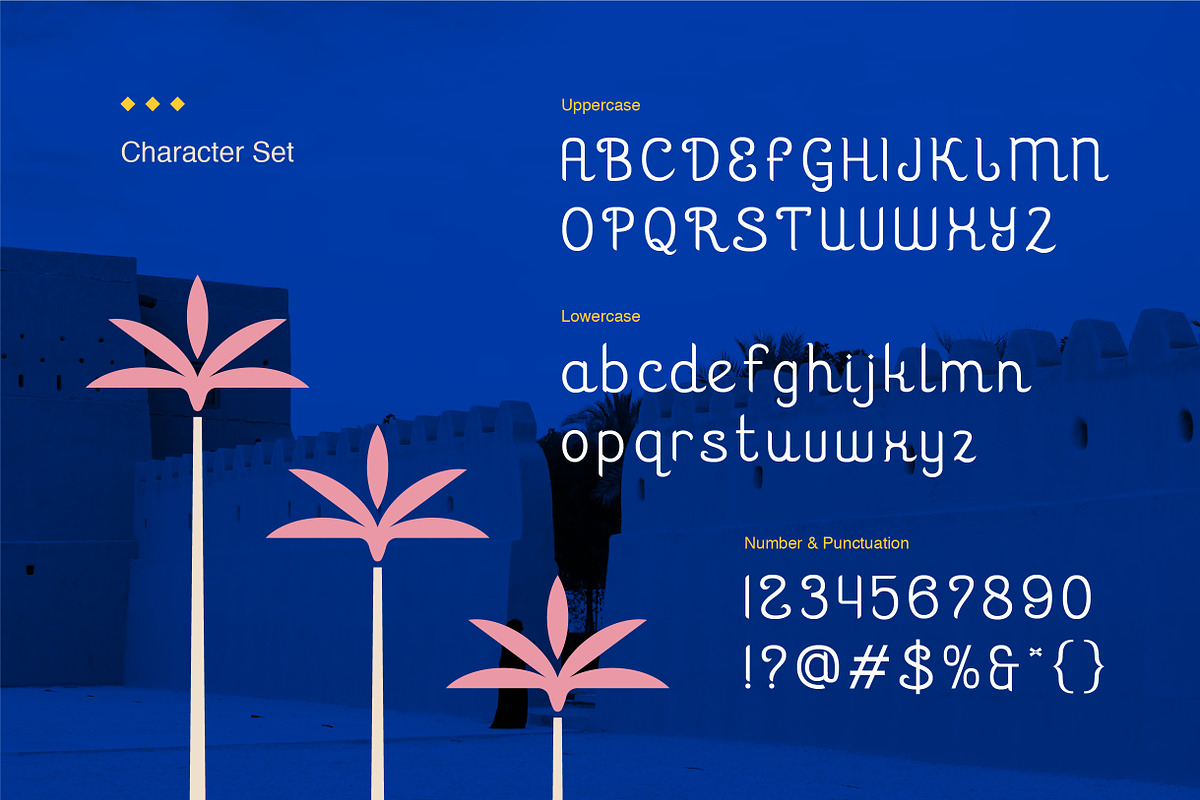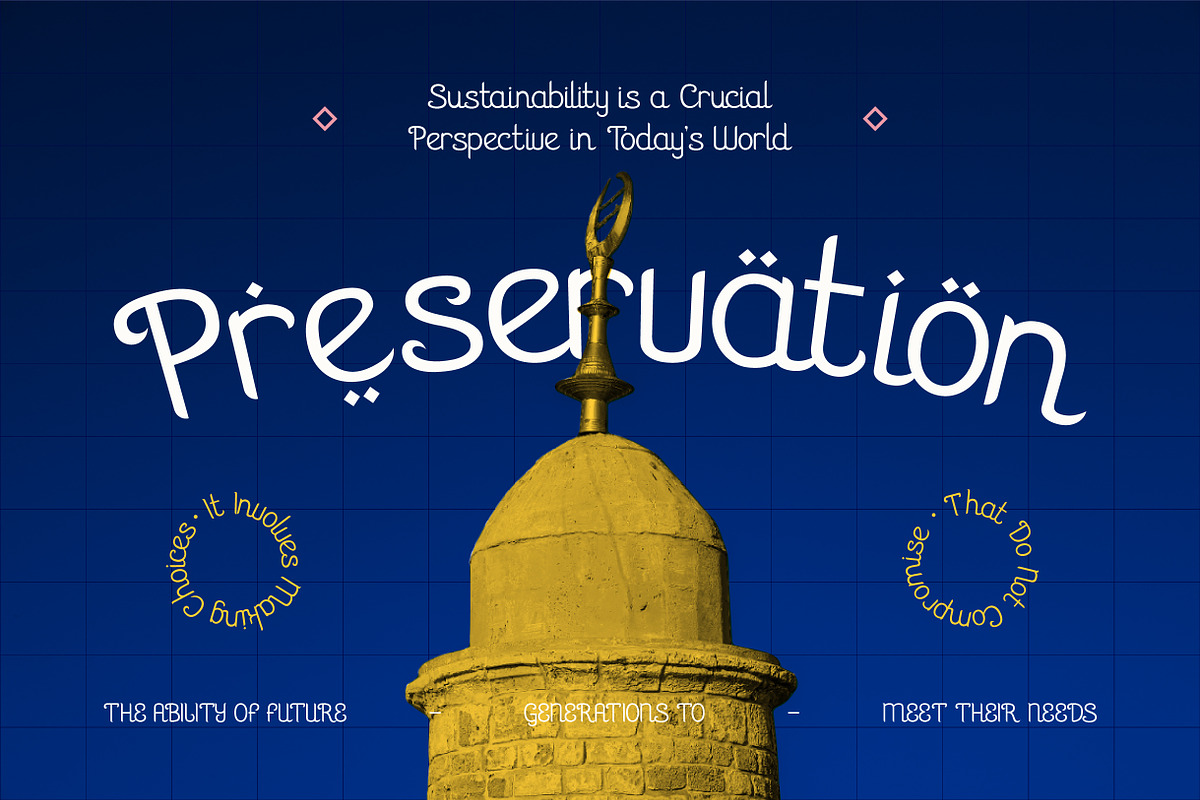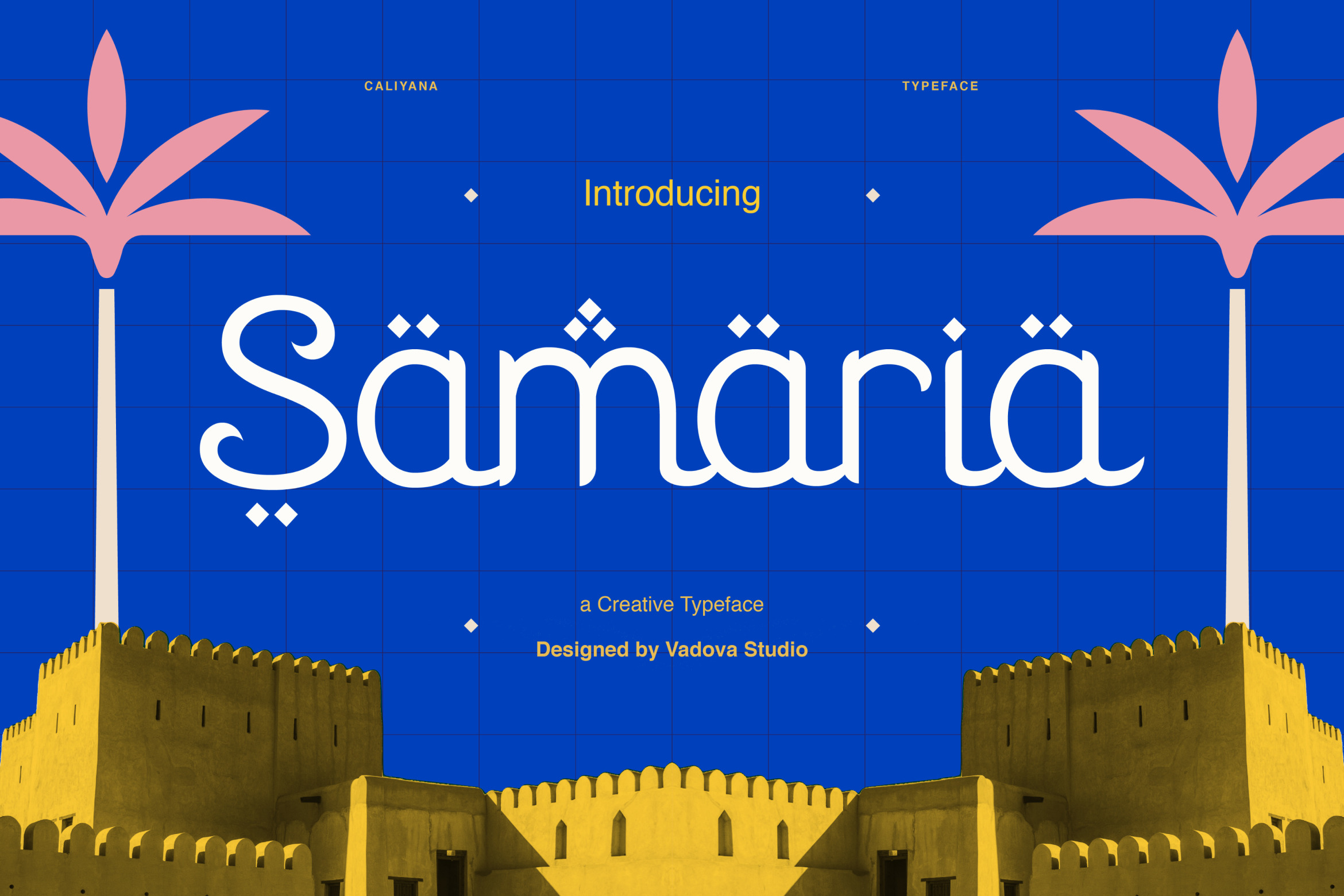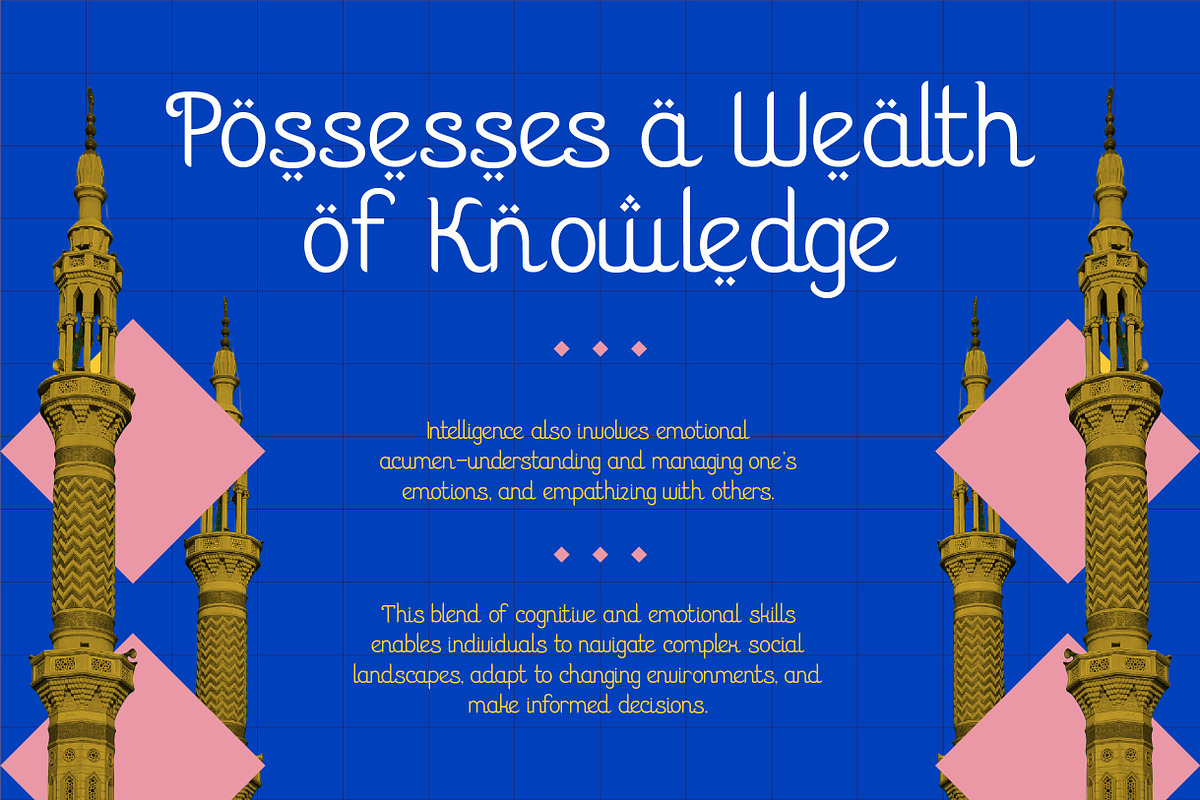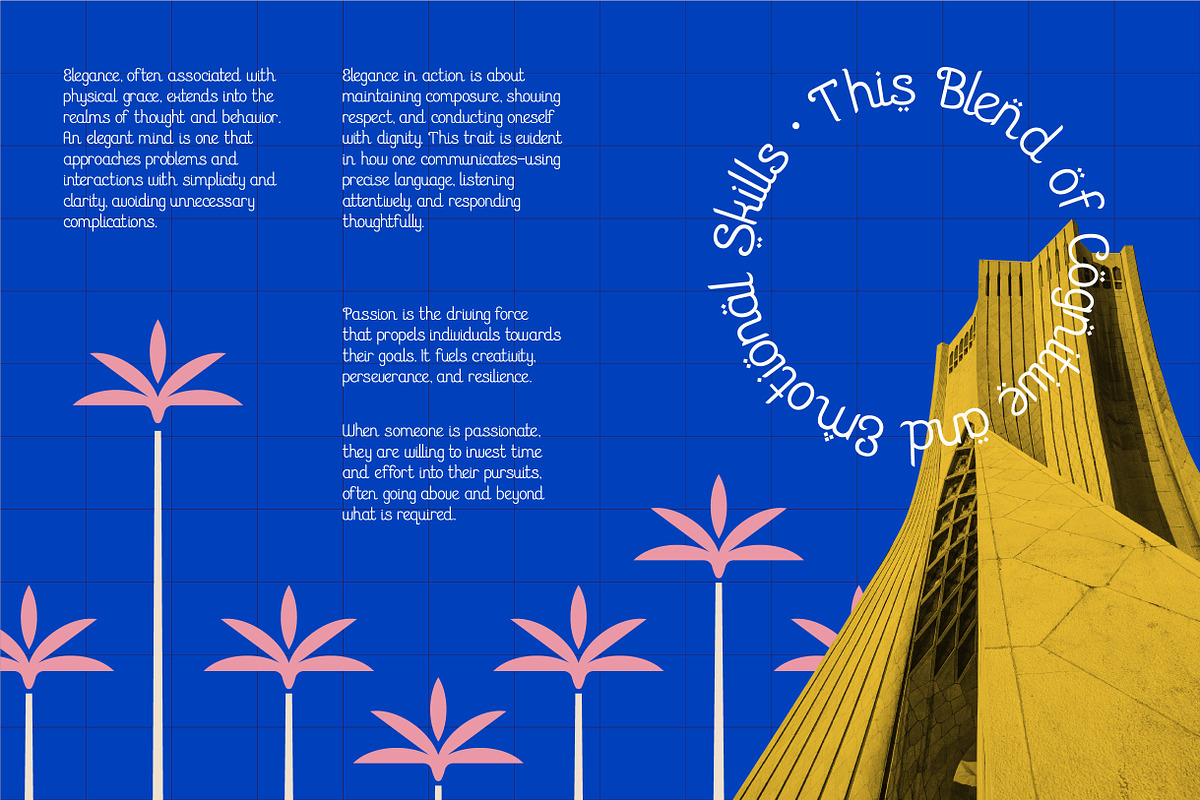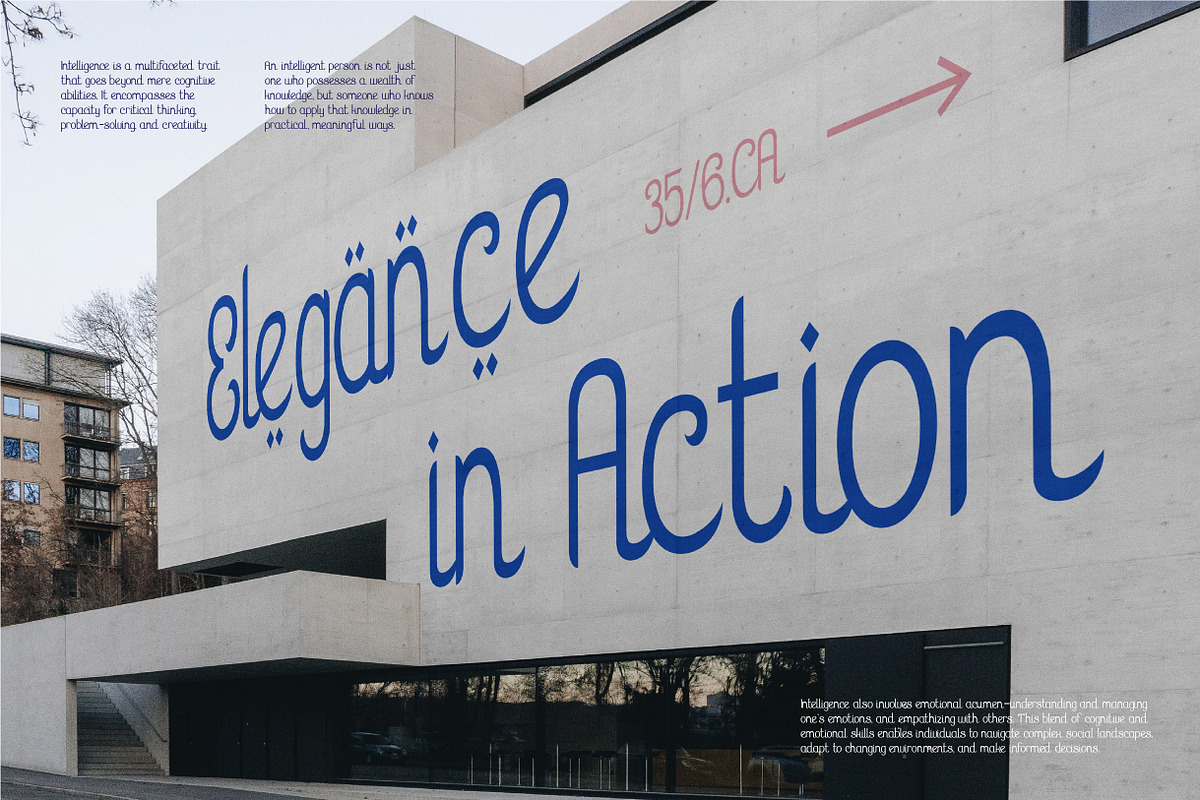
Samaria Creative Typeface Font
Caliyana is a creative Arabic-inspired display typeface that blends cultural elegance with modern design clarity. Featuring distinctive curved terminals, decorative diacritic elements, and subtly calligraphic forms, this typeface captures the spirit of Middle Eastern heritage while maintaining clean contemporary structure. Its refined contrast and ornamental touches make it ideal for bold titles, cultural branding, Ramadan campaigns, and heritage-driven visual identities.
Caliyana is highly relevant for brands and designers working within cultural, Islamic, and Middle Eastern themes. It is perfect for Ramadan campaigns, Eid promotions, mosque events, halal product packaging, cultural festivals, hospitality branding, editorial covers, and tourism projects. Its distinctive diacritic-inspired forms make it especially strong for visual storytelling and heritage-centered brand identities.
- Arabic-inspired display design with ornamental geometric structure
- Decorative diamond diacritics and cultural accents enhancing authenticity
- Balanced Latin letterforms blended with Middle Eastern aesthetics
- Clean stroke contrast with smooth curved terminals for elegant flow
- Harmonized spacing designed for impactful headlines and decorative layouts
- Arabic-inspired letterforms with elegant decorative that reflect cultural aesthetics
- Soft calligraphic curves blended with clean contemporary structure
- Distinctive curved terminals and ornamental accents for expressive headlines
- Balanced stroke contrast that maintains clarity while preserving artistic character
- Carefully spaced characters optimized for bold,branding, and presentation layouts